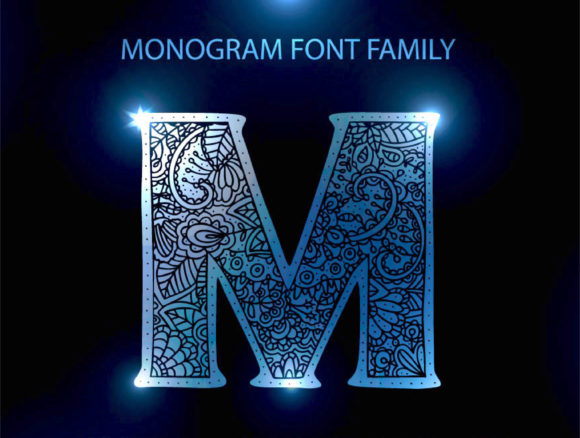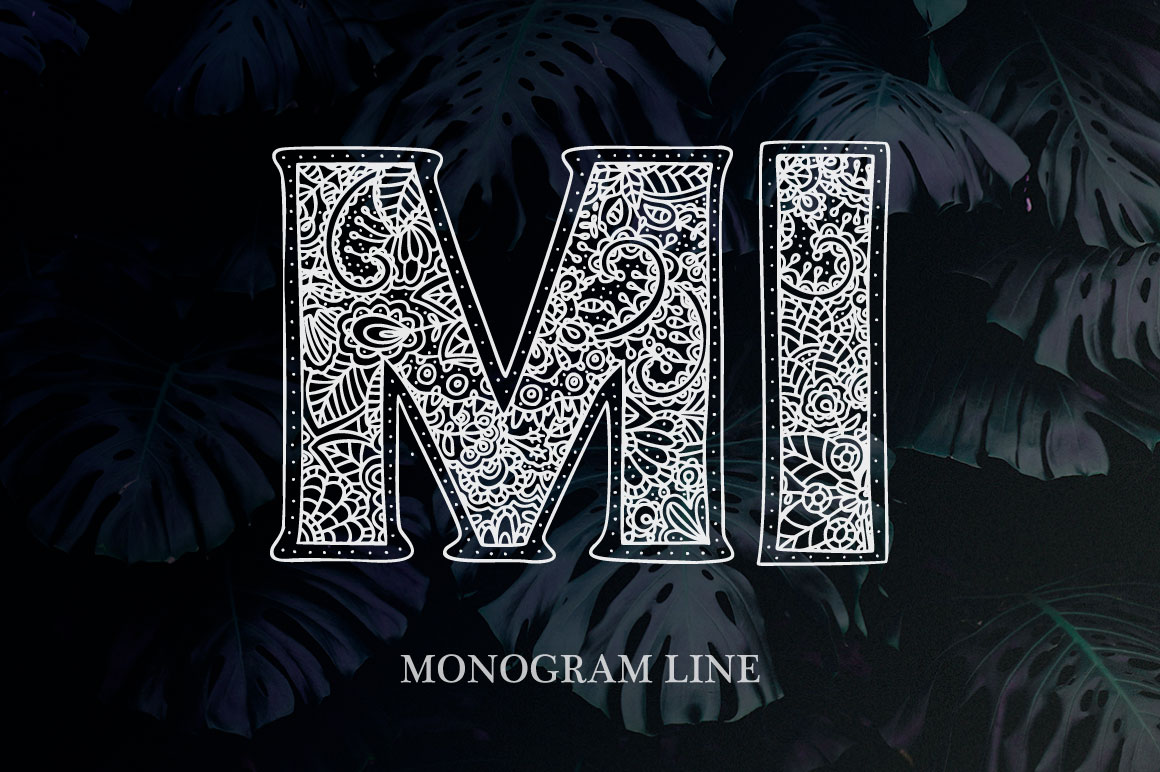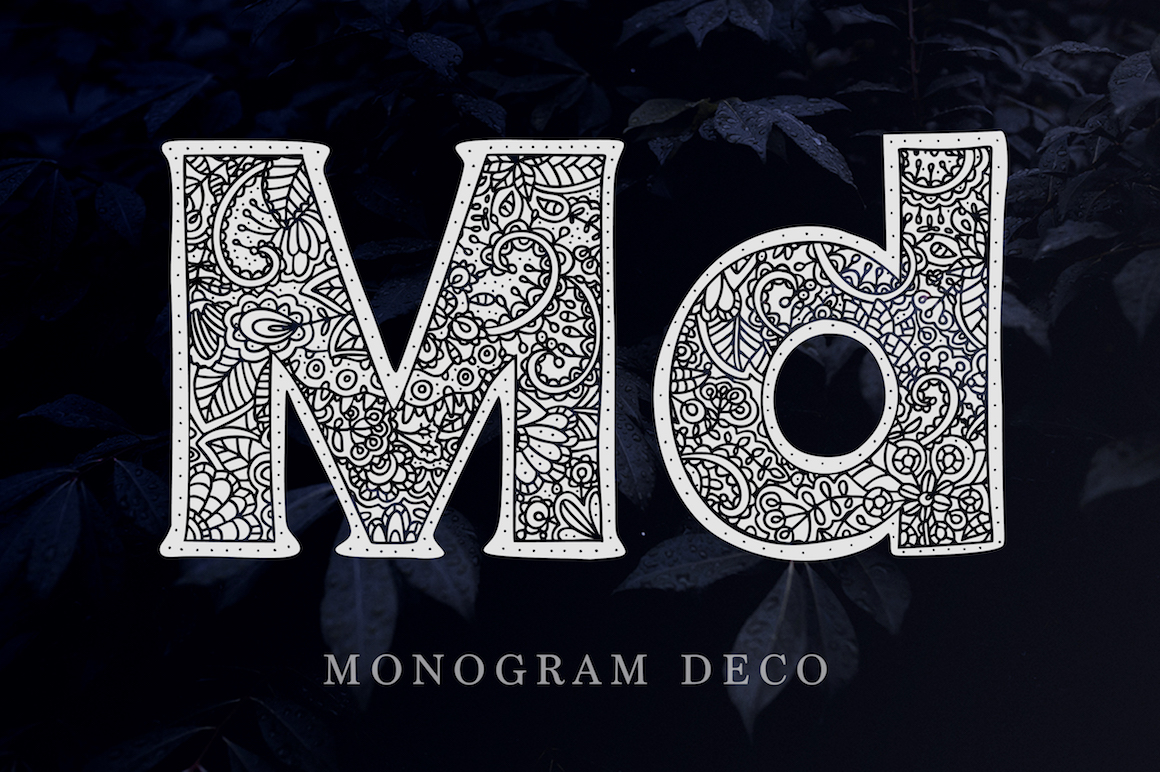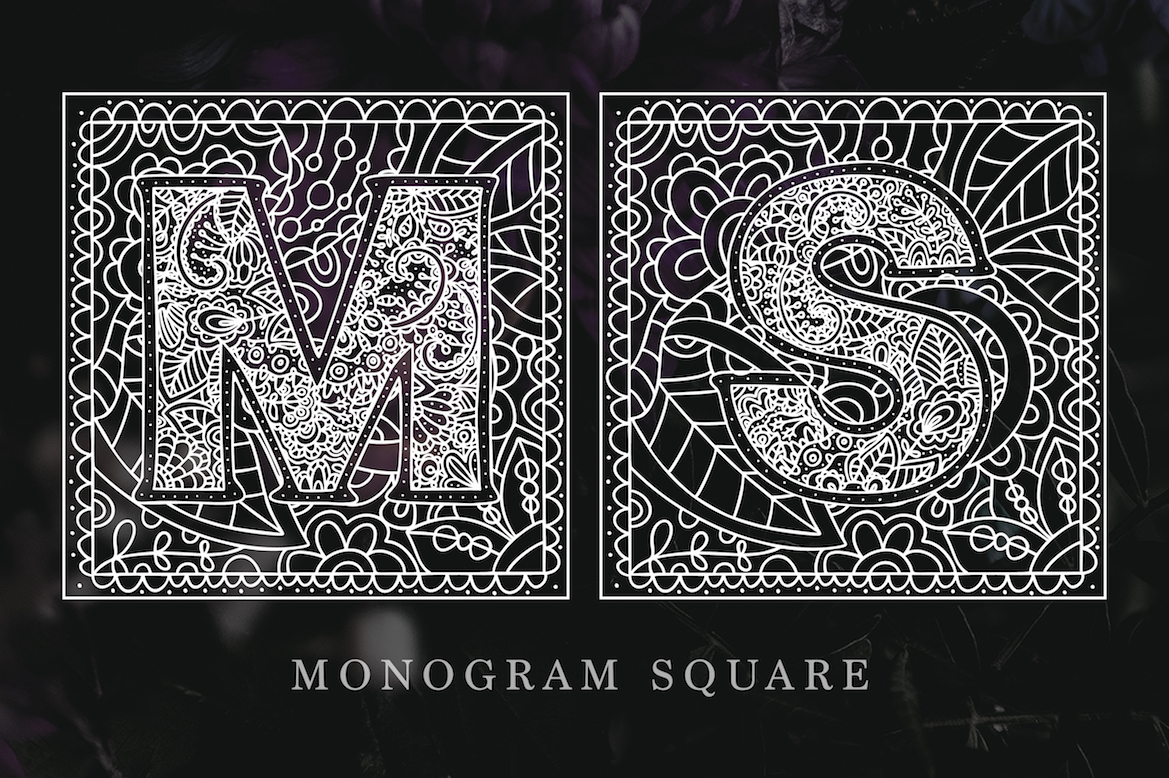
Monogram Font Family Font
About the Monogram Font Family Font
From logos to headlines, the Monogram Font Family Font is the perfect choice for making a lasting impression. The Monogram Font Family includes 5 extremely elegant and breathtakingly detailed fonts, with each letter being a detailed art piece that can stand alone or be paired flawlessly. Odd looking and creative, Monogram were crafted for the most unique and ornate touch available for your design projects.
Monogram excels in applications requiring a strong visual impact, such as logos, short headlines, and invitations. Its ornate detail makes it unsuitable for body text or UI elements where readability is paramount; long passages set in Monogram would be difficult to read. Consider using it sparingly, as a highlight or accent.
The font’s personality is undeniably bold and elegant. It suits brands projecting luxury, sophistication, or a handcrafted aesthetic. Think high-end jewelry, boutique hotels, or bespoke tailoring.
Pairing Monogram effectively requires a contrasting typeface. A clean sans-serif like Helvetica or a simple serif like Garamond would provide excellent balance, allowing Monogram’s intricate details to shine without overwhelming the design. Avoid pairing it with other highly decorative fonts to prevent visual clutter.